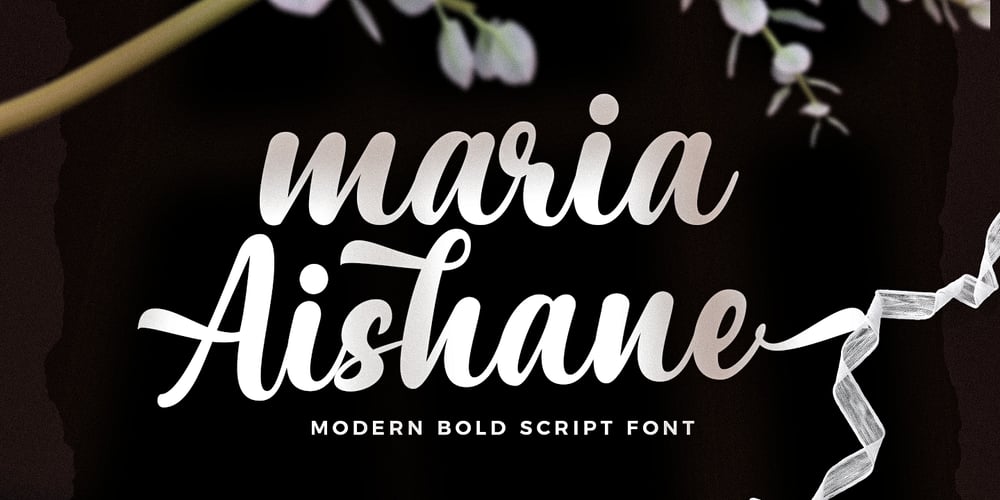
Maria Aishane Script Font Family was designed by Zahratul Laila and published by Dora Typefoundry. Maria Aishane Script contains 1 styles and family package options. Maria Aishane is a bold new type of modern modern calligraphy script that has an alternative. make your designs beautiful and look great. Maria Aishane includes all the basic characters and additional and alternative Latin characters, nice fonts for your invitation. Maria Aishane is just a simple typeface, all uppercase, lowercase letters, and only includes all the basic characters, numbers and punctuation.It is perfect for logo, greetings, branding, quotes, prints, invitations and crafting. All lowercase letters include alternates, beginning & end swashes, that makes the font look fabulous!These are all coded with PUA Unicode. Mac users can use Font Book and Windows users can use Character Map to view and copy any of the extra characters to paste into your favourite text editor/app.Thanks and have a wonderful day